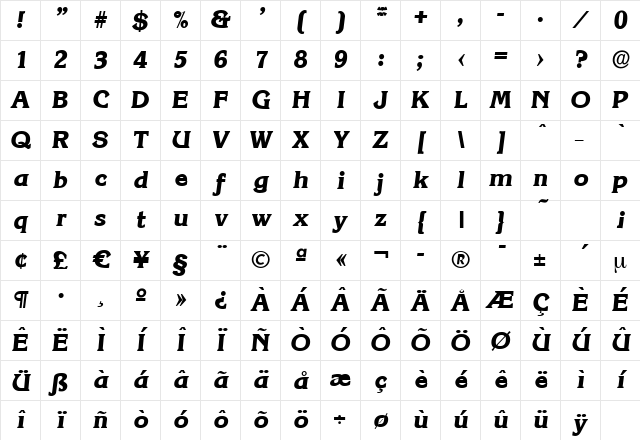
AlanBecker-ExtraBold Italic Free Font
AlanBecker-ExtraBold Italic
AlanBecker-ExtraBold Family
AlanBecker-ExtraBold Italic
Design Context for AlanBecker-ExtraBold
AlanBecker-ExtraBold is a composed and adaptable typeface that performs quietly and consistently across a wide range of design contexts. The slanted form adds forward momentum and visual energy. Its bold stroke weight gives it real presence on the page.
Pro Tip: Use AlanBecker-ExtraBold for emphasis, pull quotes, and subheadings where its slanted energy can add rhythm to the layout.